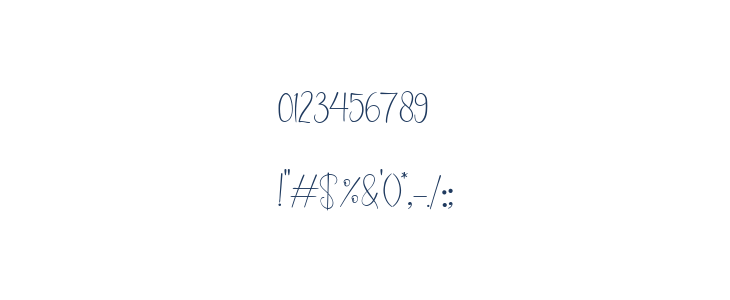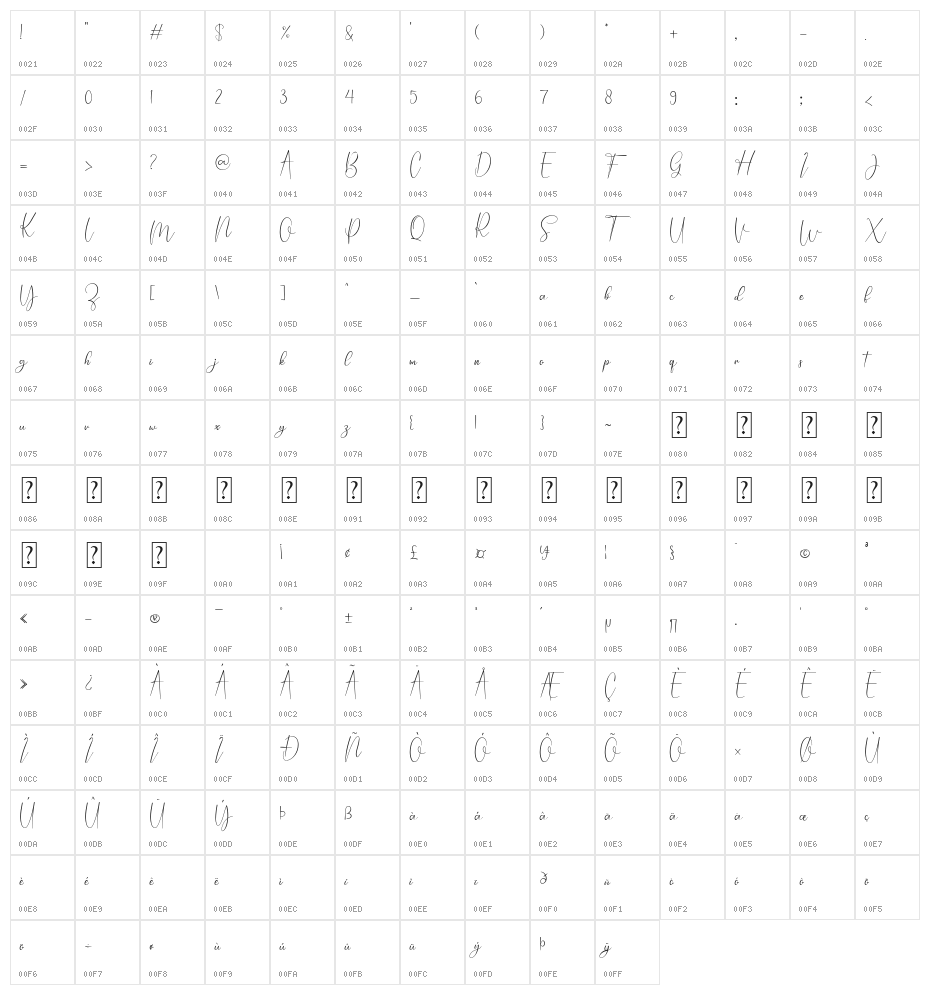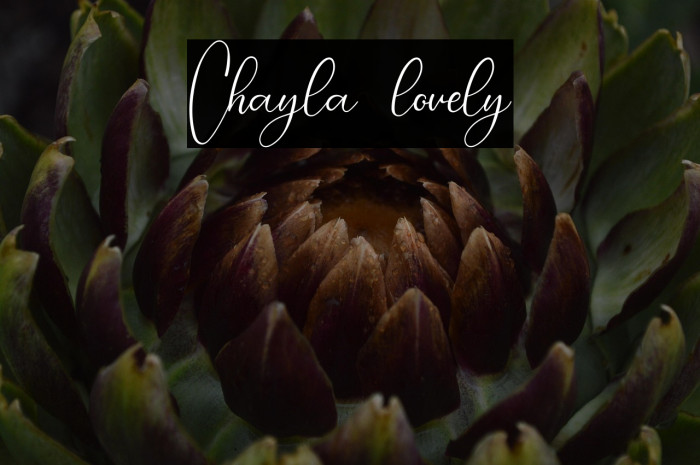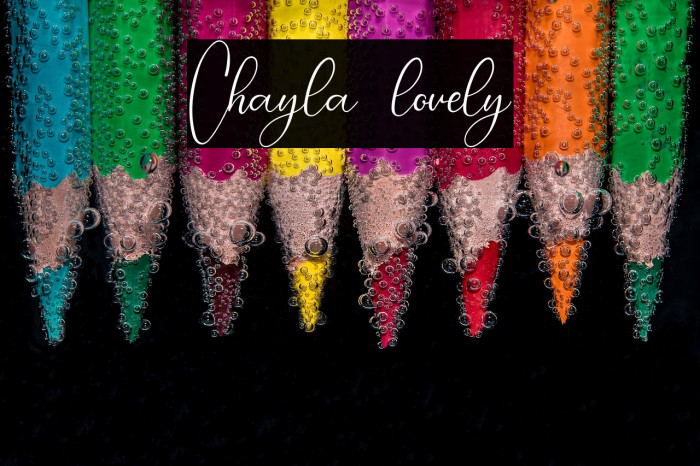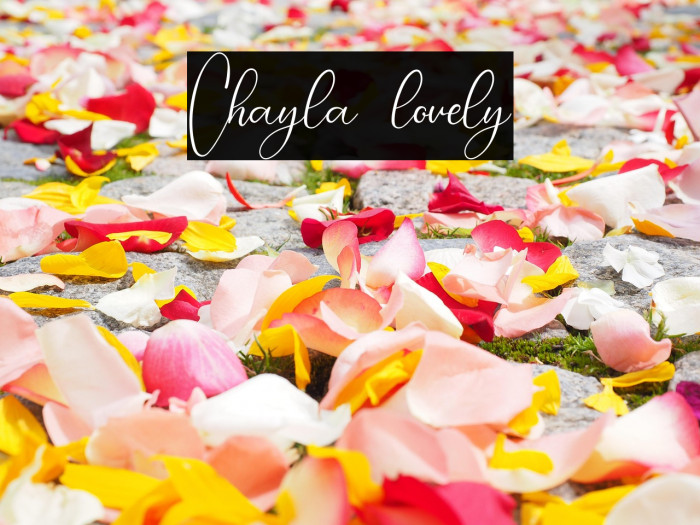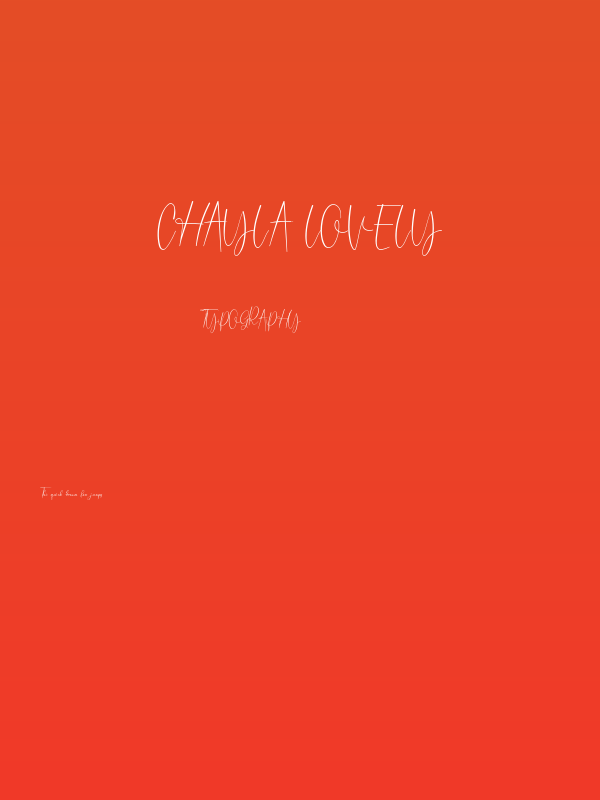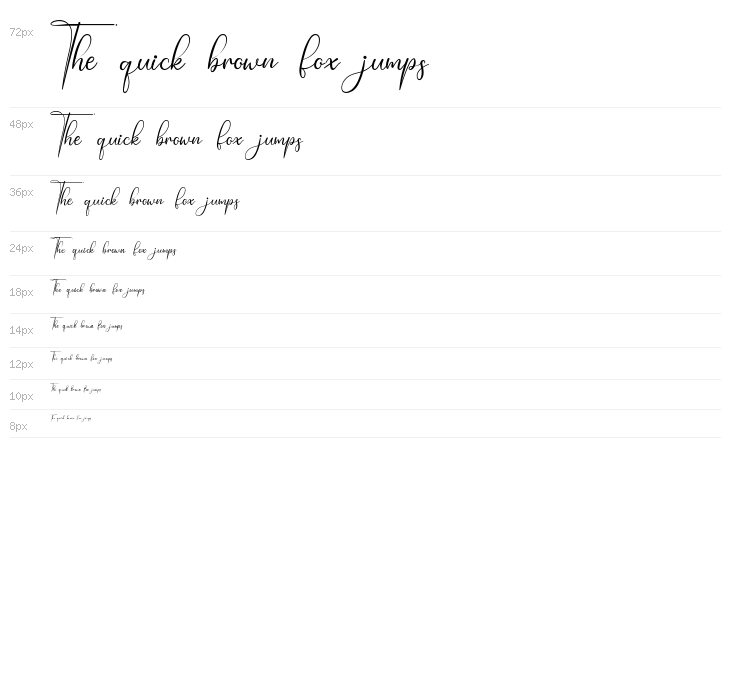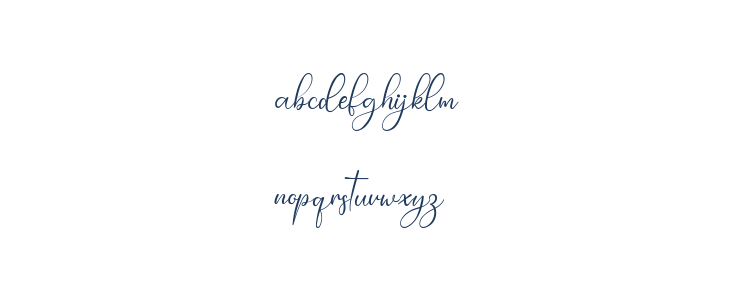
Chayla lovely Font
Chayla lovely Description
This font features a whimsical and elegant script style, characterized by its flowing, interconnected letters and delicate strokes. The uppercase letters are tall and slender, with unique loops and curves that add a touch of sophistication. The lowercase letters maintain a consistent flow, enhancing readability while preserving the artistic flair. Numbers and special characters are designed to complement the overall aesthetic, with a similar emphasis on curves and fluidity. This font exudes a sense of grace and creativity, making it ideal for projects that require a personal and artistic touch.